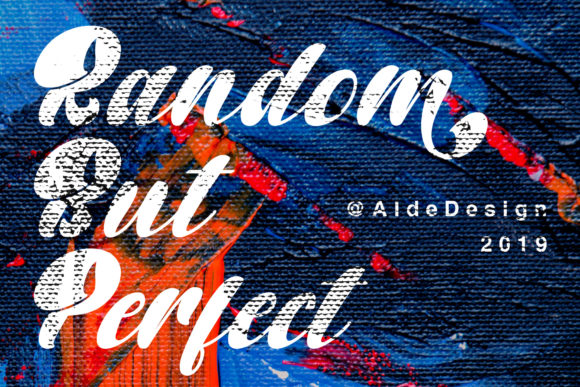
Prepare yourself for a striking adventure with Random But Perfect, a script font that unleashes your creativity like never before. Its bold strokes and playful curves evoke a sense of joyous spontaneity, perfect for projects seeking a touch of unpredictable charm.
Step into a realm of visual delight as you explore Random But Perfect's boundless versatility. Let its handwritten essence bring life to logos, posters, social media, invitations, and any project craving a burst of personality. Watch in awe as ordinary designs transform into captivating masterpieces, brimming with a vibrant energy that commands attention.
Immerse yourself in the unlimited possibilities that Random But Perfect offers. Its distinctive style, crafted with exceptional detail, adds a touch of whimsy to branding, packaging, and marketing materials. Elevate your designs to new heights, captivating audiences with a unique visual experience that leaves a lasting impression.
Don't settle for ordinary when you can embrace the extraordinary. Random But Perfect is more than just a font; it's a passport to a world of creative expression. Let its adventurous spirit guide you, turning mundane ideas into remarkable works of art.